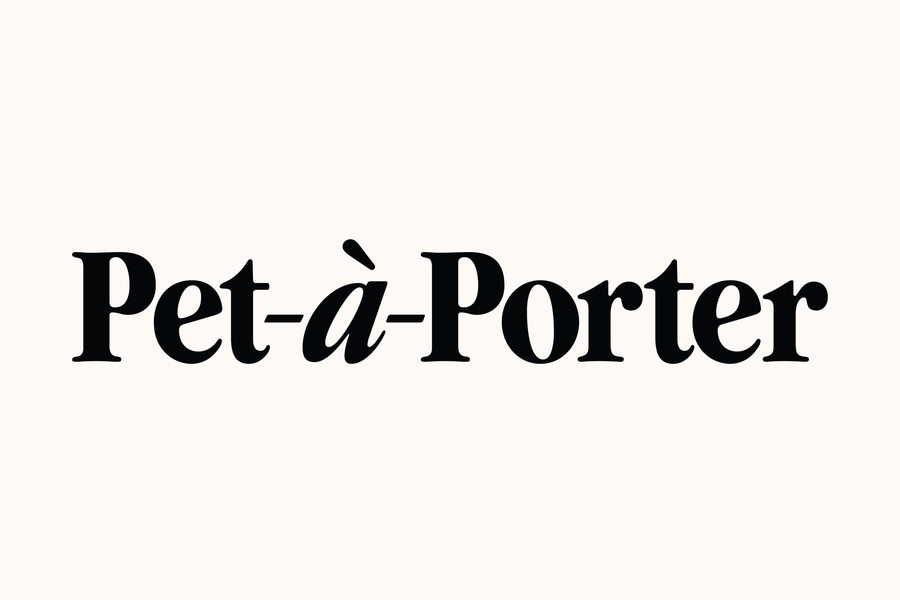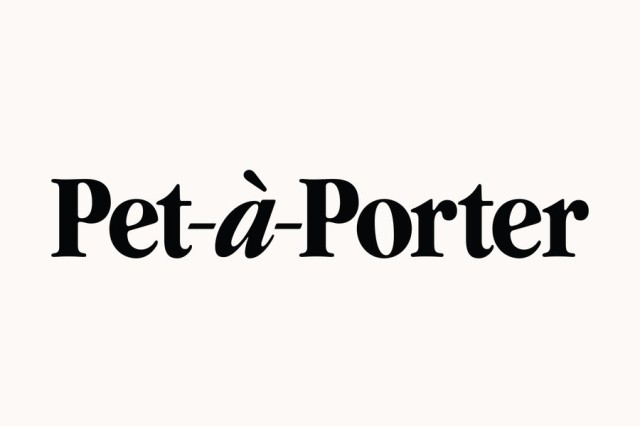
It appears to be a customization of ITC Garamond Bold Condensed (Bold Condensed Italic for the a).
I like what they did to the 'e's, making it sort of Veneitian.